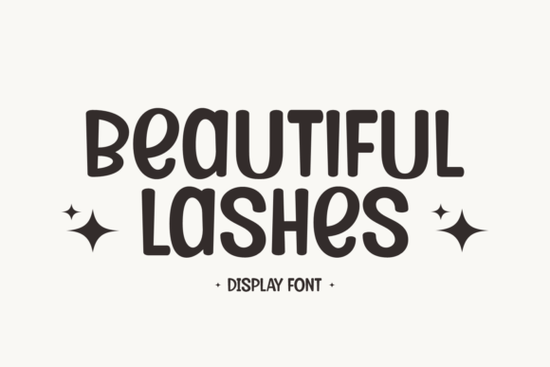
If you're looking for a handwritten font that feels both playful and polished something that works just as well on a birthday card as it does on a tote bag or T-shirt design you’ll probably love the Beautiful Lashes Font. It’s not overly cutesy, but it’s undeniably charming: a retro-inspired, doodle-style typeface with bold, rounded strokes and a gentle bounce in its rhythm. Designers and crafters who’ve used it say it adds warmth without sacrificing clarity even at smaller sizes.
What kind of projects is Beautiful Lashes Font best for?
This font shines where personality matters most. Think greeting cards (especially for birthdays, Mother’s Day, or baby showers), food packaging labels, café menu boards, scrapbook titles, and sticker sheets. Its chunky, friendly weight holds up beautifully on fabric prints and vinyl cuts. Because it includes uppercase and lowercase letters, numbers, and standard punctuation, you can use it for full sentences not just headlines.
It’s also SVG-ready, so if you’re cutting with a Cricut or Silhouette, you’ll get clean, scalable outlines every time. That makes it practical for layered paper crafts, iron-on transfers, and even sublimation projects. Unlike some highly stylized script fonts, Beautiful Lashes Font stays legible across mediums no squinting required.
How does it compare to other popular retro or handwritten fonts?
While Brave Treat Font leans into bold, modern signage energy, Beautiful Lashes Font feels softer and more organic like something drawn with a thick marker. If you’ve used Retro Groovy Font, you’ll recognize the shared love of mid-century curves but Beautiful Lashes swaps the sharp angles for smoother, bouncier forms.
It’s less structured than Stay Lucky Font, which has tighter spacing and a more consistent baseline making Beautiful Lashes better for casual, joyful vibes. And unlike Pokemon Font, which leans heavily into pixel-perfect nostalgia, this one feels hand-drawn and approachable not cartoon-strict.
Does it work for branding or business use?
Yes if your brand voice is warm, inclusive, and gently playful. Small businesses selling handmade goods, kids’ apparel, or wellness products often find it fits naturally into their visual identity. It’s been used successfully for logo lockups (paired with a simple sans-serif for contrast), product tags, social media graphics, and even email headers.
Just keep in mind: because it’s a display font, it’s not ideal for long paragraphs or body text. Stick to headings, short quotes, labels, and decorative phrases. For balance, many designers pair it with clean, neutral fonts like Montserrat or Poppins similar to how Christmas Radiance Font is often paired with minimalist sans-serifs for holiday collections.
Real-world tips for using it well
- Test spacing first: The letters have generous side bearings, so tight tracking may be needed for short words like “LOVE” or “YES”.
- Use the SVG version for cut files: It scales cleanly and avoids rasterization issues when resizing in design software.
- Print a sample before bulk orders: Especially on dark fabrics its bold weight helps, but contrast still matters.
- Avoid over-layering: Since it’s already expressive, adding too many effects (glows, shadows, textures) can muddy its charm.
It’s also worth noting that while Beautiful Lashes Font fits right into feminine, kid-friendly, or food-and-beverage design spaces, it’s flexible enough to feel fresh year-round not just for holidays. You’ll see it on summer lemonade stand signs, autumn bakery labels, and spring wedding invites alike.
If you’re building a seasonal collection or updating your shop’s design toolkit, this font pairs nicely with others that share its relaxed confidence like Retro Groovy Font for contrast or Brave Treat Font for bolder moments.